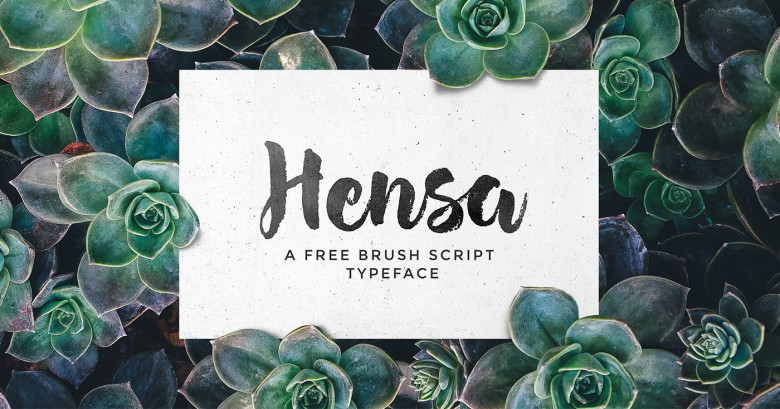
Hensa was designed by Vlad Cristea, and shared unconsolidated Graphicburger, this is a great font.
Hensa design handwriting style, brush, very professional fonts. Hensa contains the basic latin lowercase and uppercase letters, punctuation glyphs, numerals, ligatures and several swashes.
Brush Font Hensa suitable for many design projects, such as logo, printing, wedding cards …
Hensa Brush Font